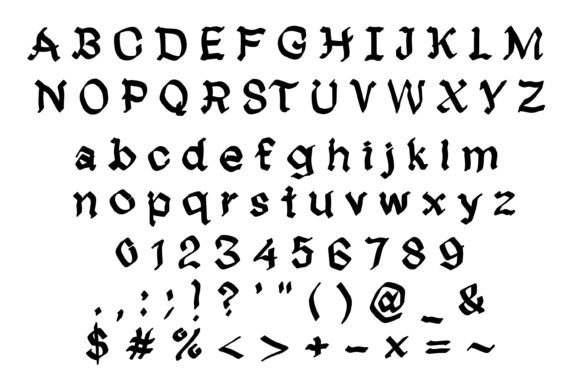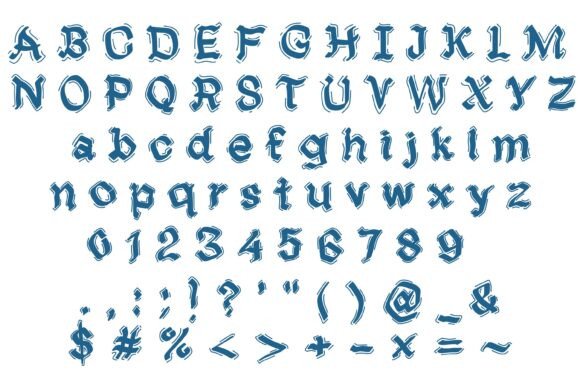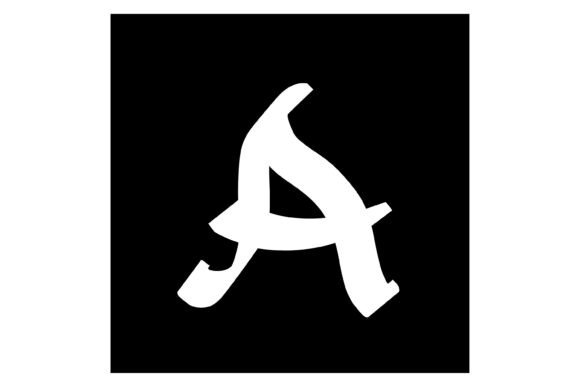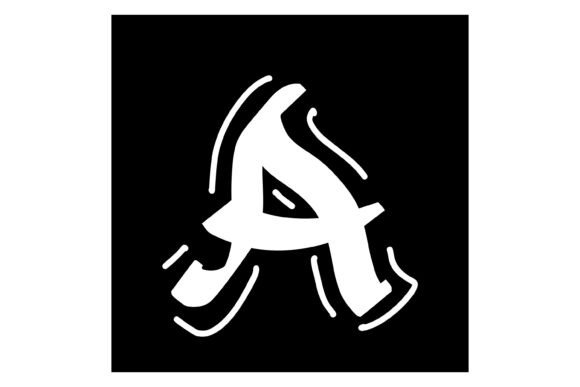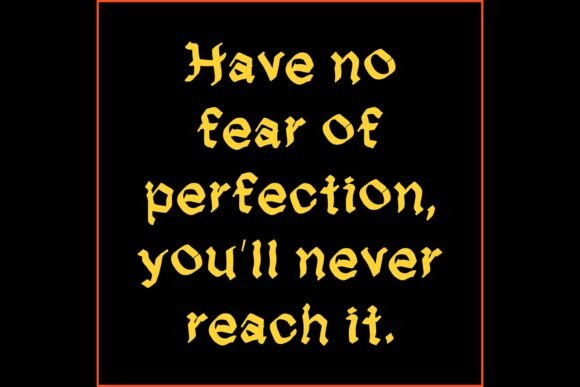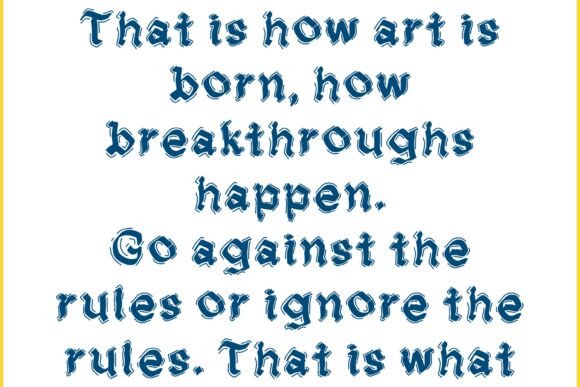
Introduction to Mystic Stroke Font
Have you ever been in the middle of a creative project, pouring your heart and soul into a design, and then – BAM! – the perfect font appears, elevating your work to the next level? That’s exactly what happened to many designers when they stumbled upon the Mystic Stroke Font.
This enchanting font duo is a game-changer for anyone looking to add a touch of mystique to their designs. With its bold and handwritten style, blending gothic flair with edgy character strokes, the Mystic Stroke Font is the perfect tool for creating high-quality designs that stand out from the crowd.
Whether you’re working on a tattoo design, fantasy logo, poster, or even gaming graphics, the Mystic Stroke Font is an invaluable resource that’s sure to take your creative project to new heights. And the best part? You can download it for free, making it an accessible design resource for designers of all levels.
Key Features of Mystic Stroke Font
- High-quality design for creative projects, offering a unique and artistic touch.
- Available for free download as a design resource, making it accessible to a wide range of users.
- Includes a range of styles and weights, providing flexibility for designers to experiment with different looks.
- Perfect for designers seeking a distinctive and eye-catching font for their creative projects.
Honest Review: Mystic Stroke Font
I recently came across the Mystic Stroke Font and I have to say, it’s a great addition to any designer’s toolkit. The font is perfect for creating a unique and eye-catching design for a creative project. One of the standout features of this font is its high-quality design, which is evident in the intricate strokes and letterforms.
What works well about the Mystic Stroke Font is its versatility. It can be used for a variety of purposes, from title headers to body text, and can be paired with a transparent background for a sleek and modern look. The font is also available for free download, making it a valuable design resource for designers on a budget.
- High-quality design with intricate strokes and letterforms
- Transparent background option for a modern look
- Perfect for creative projects and design resources
However, there are a few limitations to the Mystic Stroke Font. The font is only available in a limited range of weights, which may not be ideal for designers who need a more extensive range of font weights.
Overall, I’m impressed with the Mystic Stroke Font and I think it’s a great choice for designers looking for a unique and high-quality font. With its versatility, transparent background option, and free download, it’s a valuable design resource that’s definitely worth checking out.
Mystic Stroke Font
Some tips for getting the most out of the Mystic Stroke Font include:
1. Use it for creative projects that require a unique and eye-catching font.
2. Combine it with transparent backgrounds for a modern and sleek look.
3. Use it for titles, headings, and other prominent text elements.
Common use cases include:
1. Designing business cards and brochures.
2. Creating social media graphics